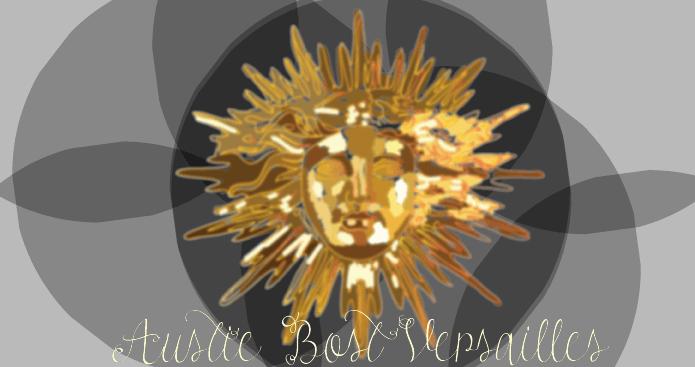
Free Austie Bost Versailles Font
Download and enjoy this free austie bost versailles font. Cool typeface to showcase your designs in a modern way. Download this free font from the original source of Font Space. Showcase your designs like a graphic design pro by adding a new touch with this fancy font.